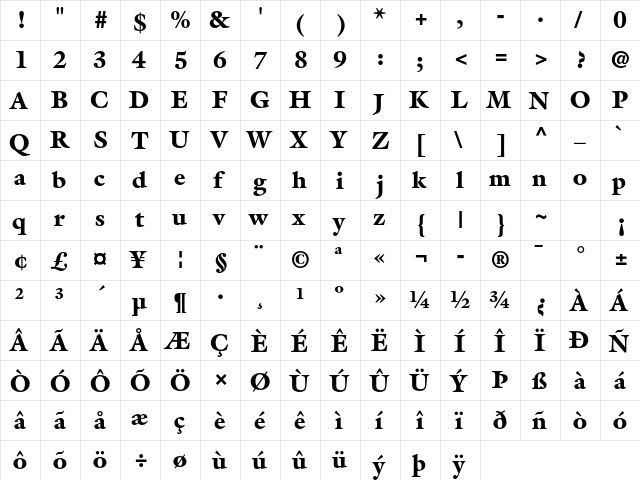
ITC Galliard Std Black Font Preview
ITC Galliard Std Black
ITC Galliard Std Black Font Details
| Designer | Matthew Carter |
Design Context for ITC Galliard Std Typeface
ITC Galliard Std offers clean, dependable letterforms without strong stylistic allegiance, making it a practical choice for designers who need flexibility.